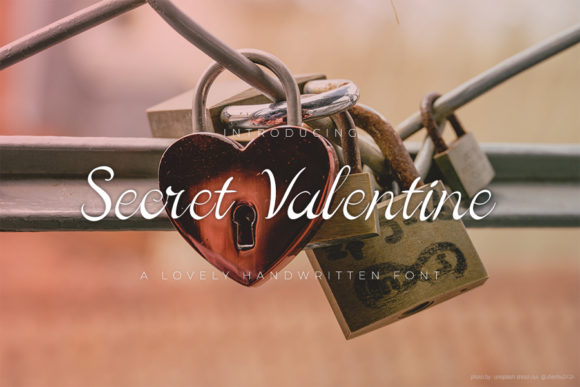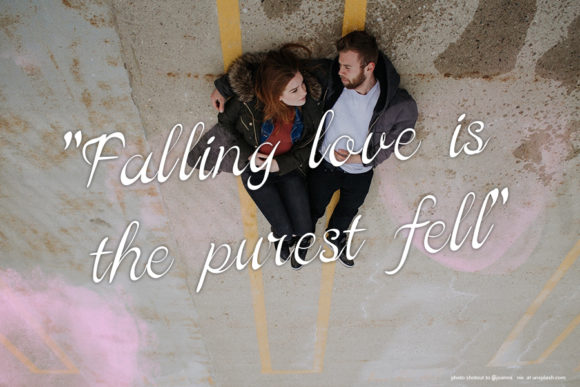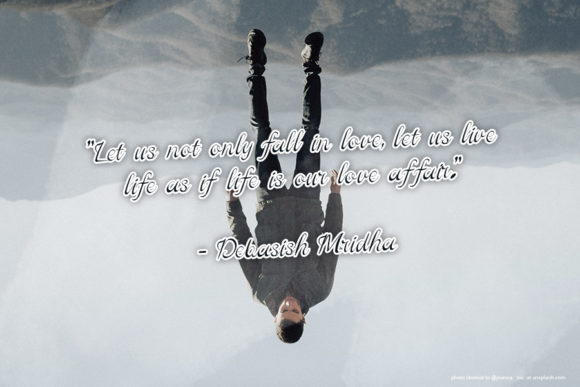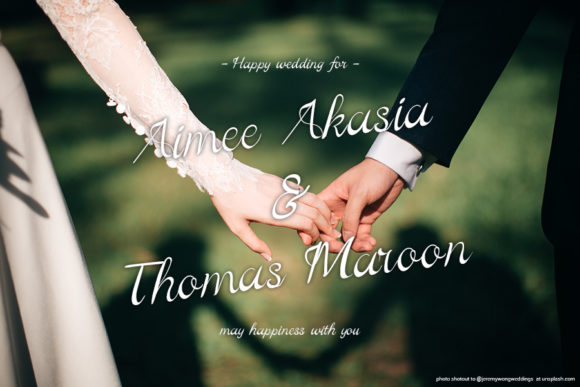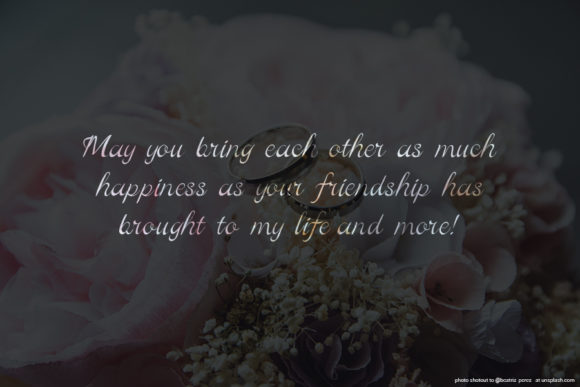
About Secret Valentine Font
Secret Valentine is a smooth and beautifully lettered handwritten font. This adaptable script font has a wide spectrum of applications ranging from greeting cards to headlines and is guaranteed to add a romantic feel to your next projects.